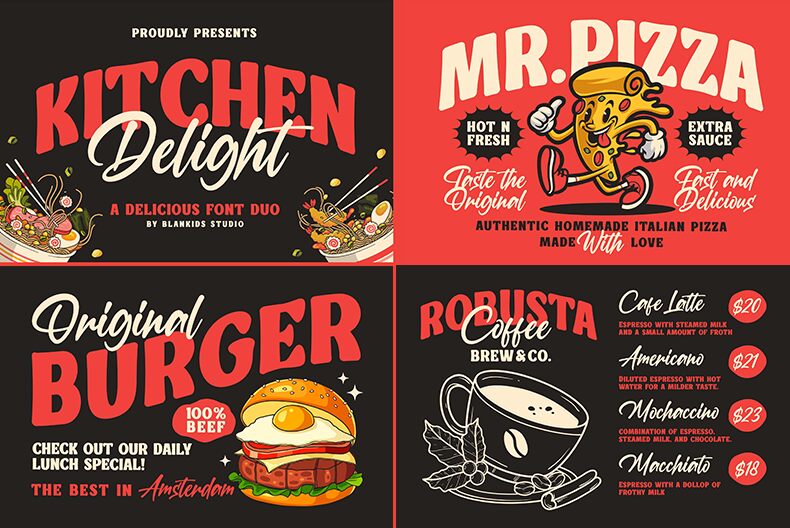
Kitchen Delight Script font family by Blankids delivers a charming handwriting style. The vintage-inspired font family includes two font styles whose strokes range from bold to thin. This small but mighty duo is ready to take your branding, editorial design, or packaging to another level. The font pack brings an energetic, dynamic, friendly, inviting, and expressive font that is versatile for a wide range of creative projects.